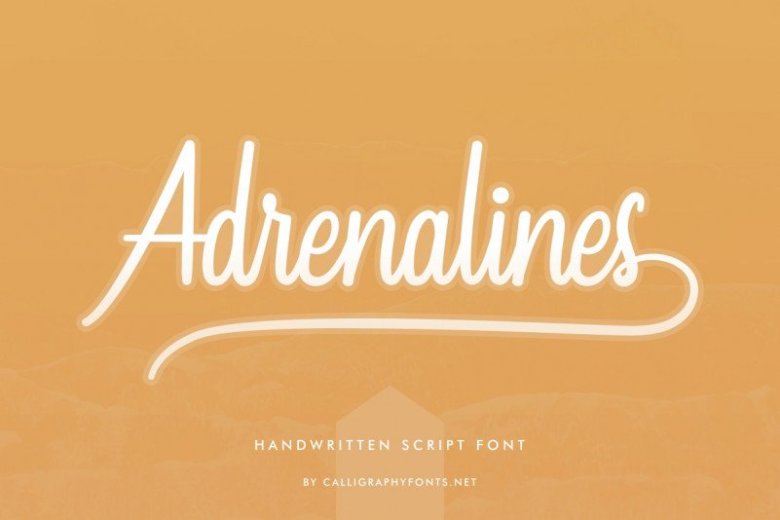
Adrenalines Calligraphy Font
Adrenalines Calligraphy Font is a Handwriting calligraphy font. The style of this font are casual, lovely, contemporary, modern, elegant, luxury and classic brush font.